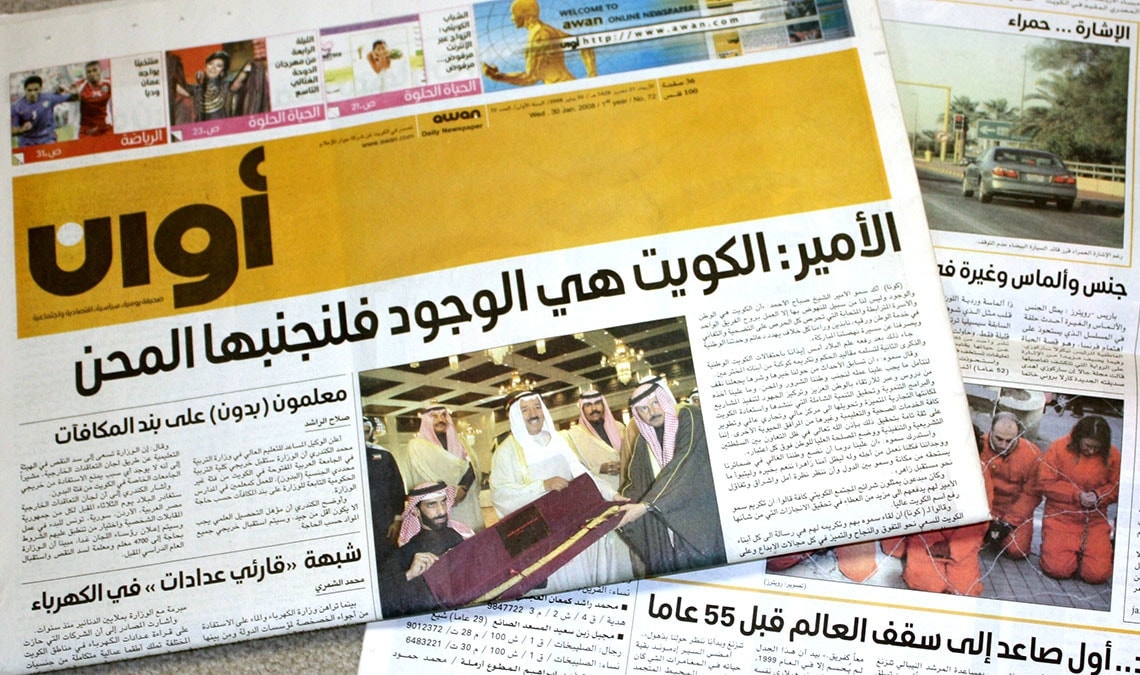
Awan newspaper
Awan was a daily forward-thinking newspaper based in Kuwait, that was briefly published from November 2007 to May 2010, with an average circulation of 15.000 copies.
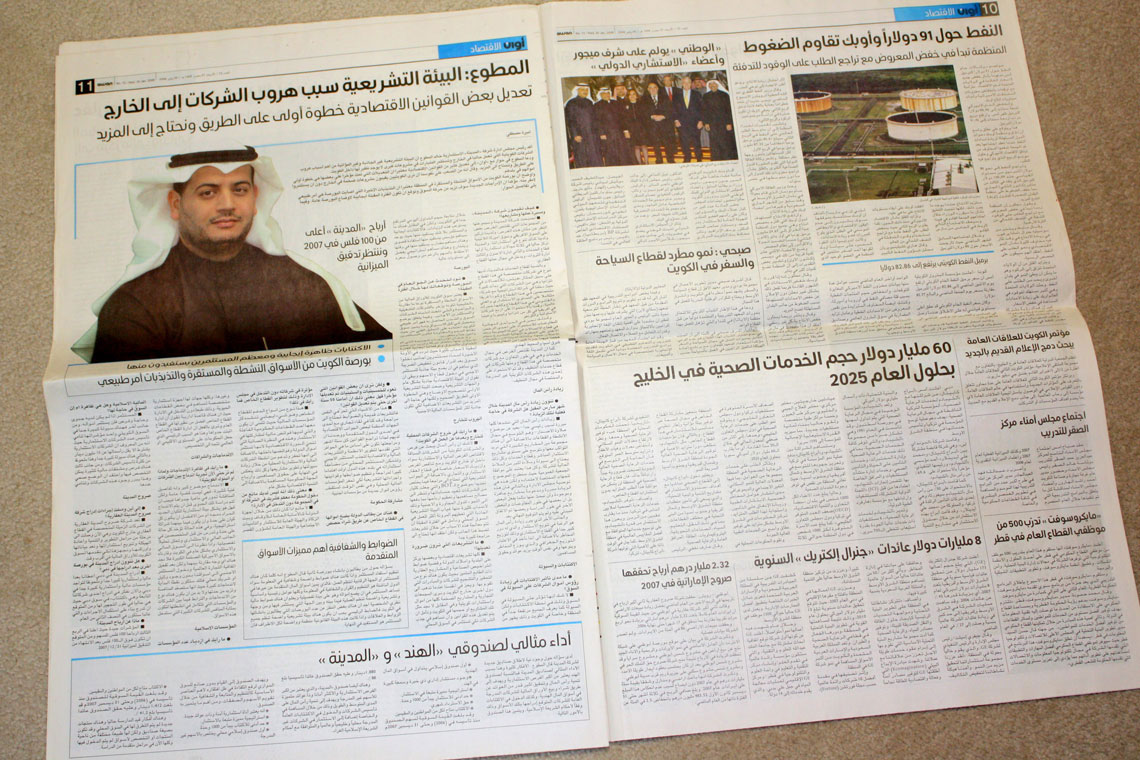
For the launch of Awan the global brand consultancy Fitch was engaged and associate design director in their Qatar branch, Anis Bengiuma wanted to have a new, custom typeface designed for the headlines. He conducted a search among known Arabic type designers, and selected Sakkal Design for this project.
The brief identified the look of the new newspaper typeface as modern, professional, prestigious, and reliable. It needed to be legible as a newspaper typeface, with low contrast and geometric forms to distinguish it from typical Arabic newspapers headlines fonts that have exaggerated baseline stokes. Working closely with the client’s design team, Awan typeface was produced in two weights in a short time schedule.
The typeface was used for the newspaper headlines, usually in bold weight, and sub-heads and article titles, usually in light weight. With its novel and clean letterforms, the new typeface immediately distinguished the newspaper as a young and progressive periodical.
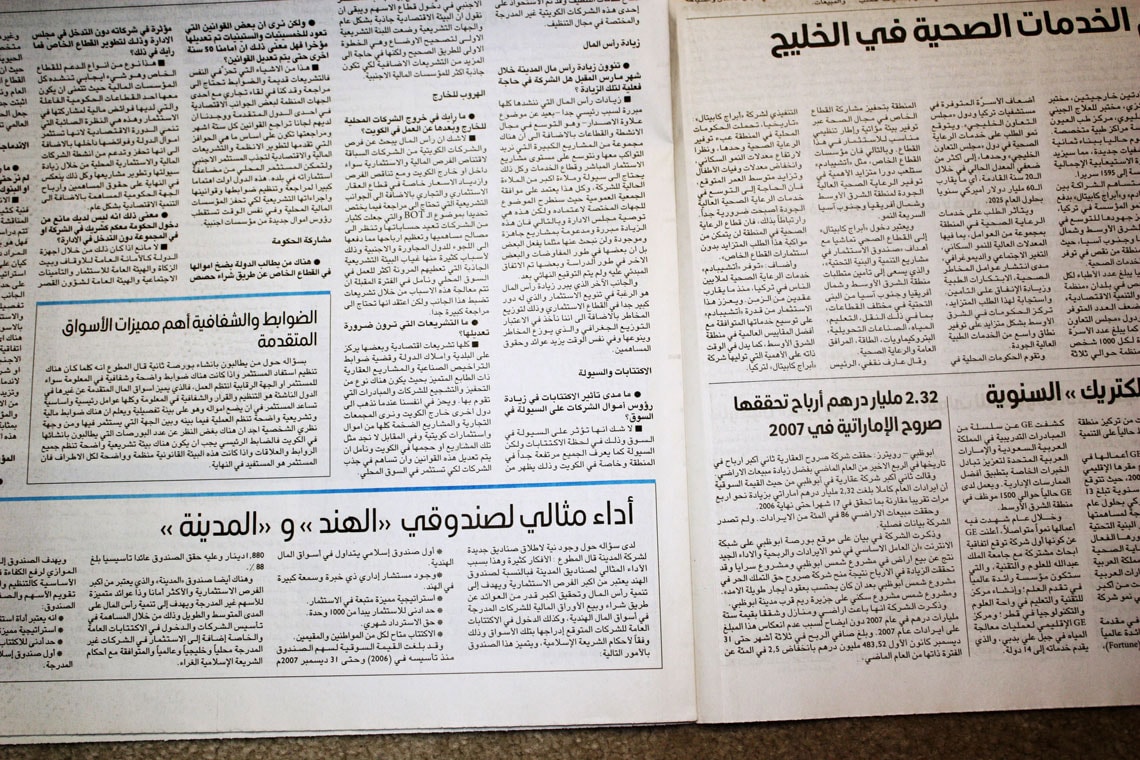
During the years of publication, Awan was an exclusive design for the newspaper. When the paper closed in 2010, the family was expanded to seven weights, a second typeface, Zaman, was introduced, adding calligraphic Naskh details, thus making it into a versatile tool, and a companion Latin was designed later by Juliet Shen. It became AwanZaman, released by TypeTogether.